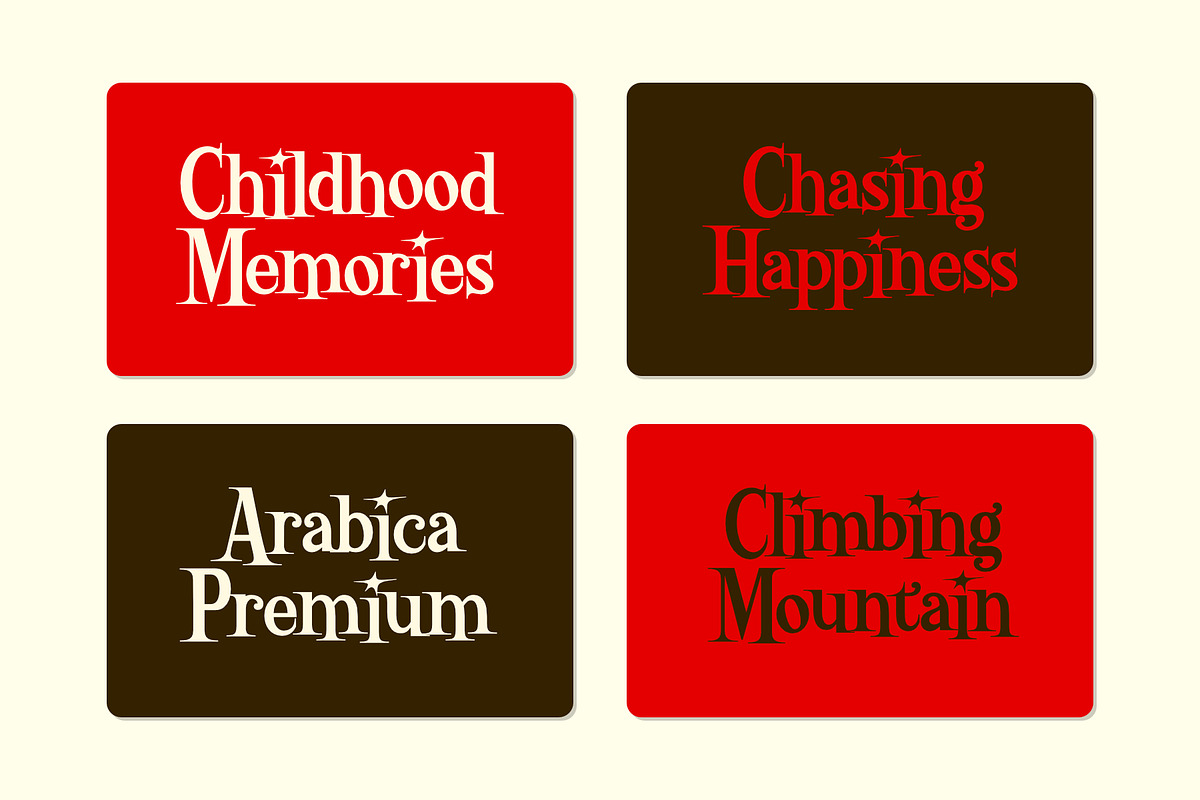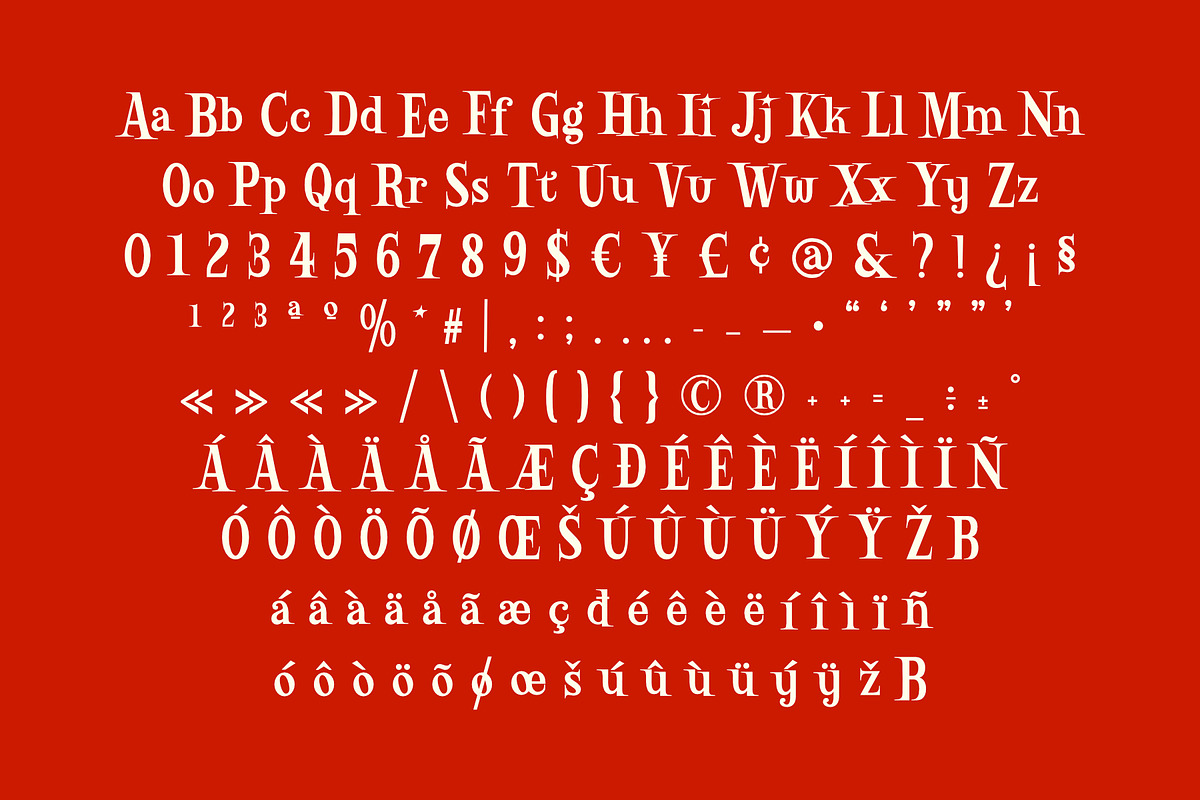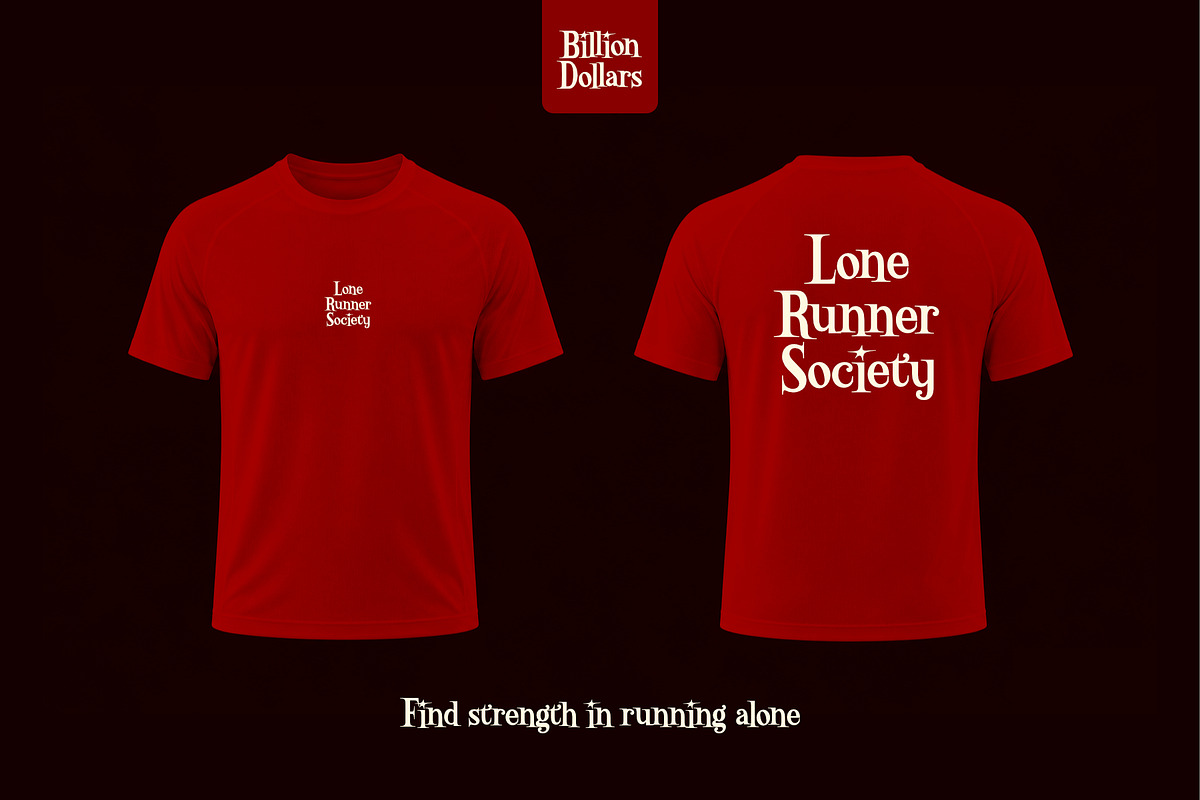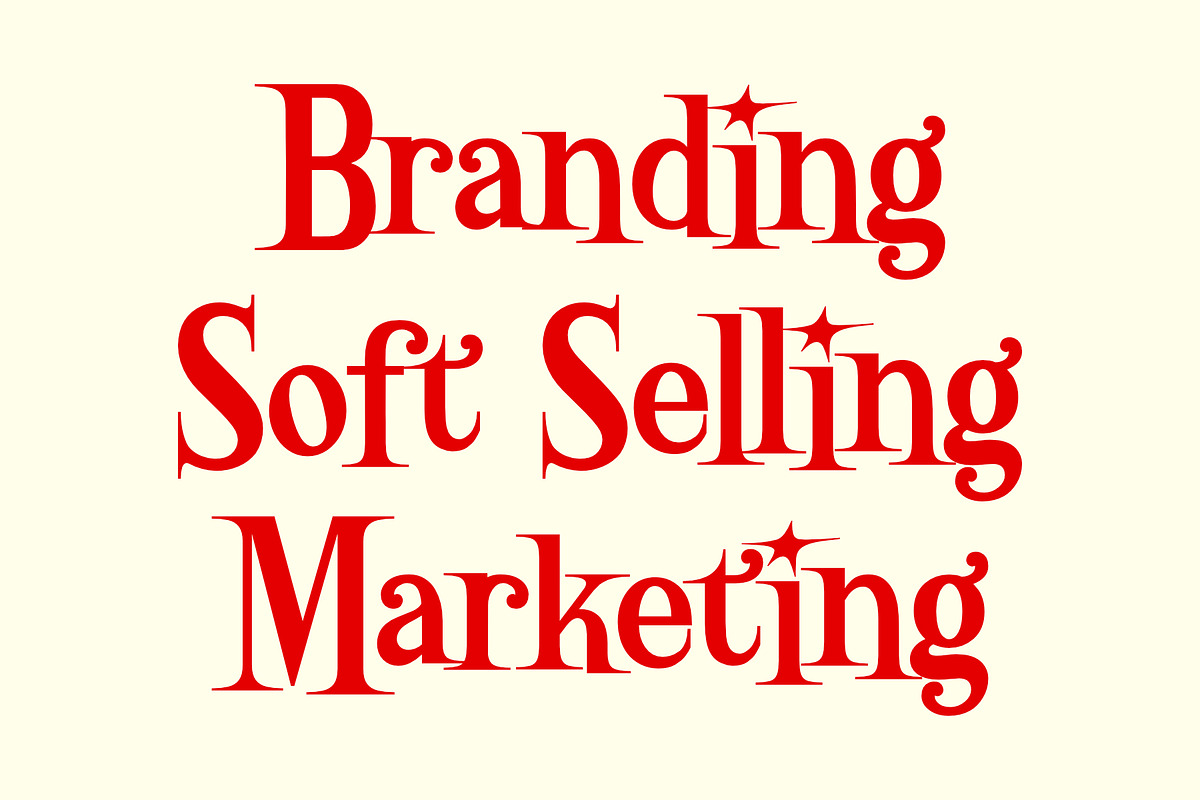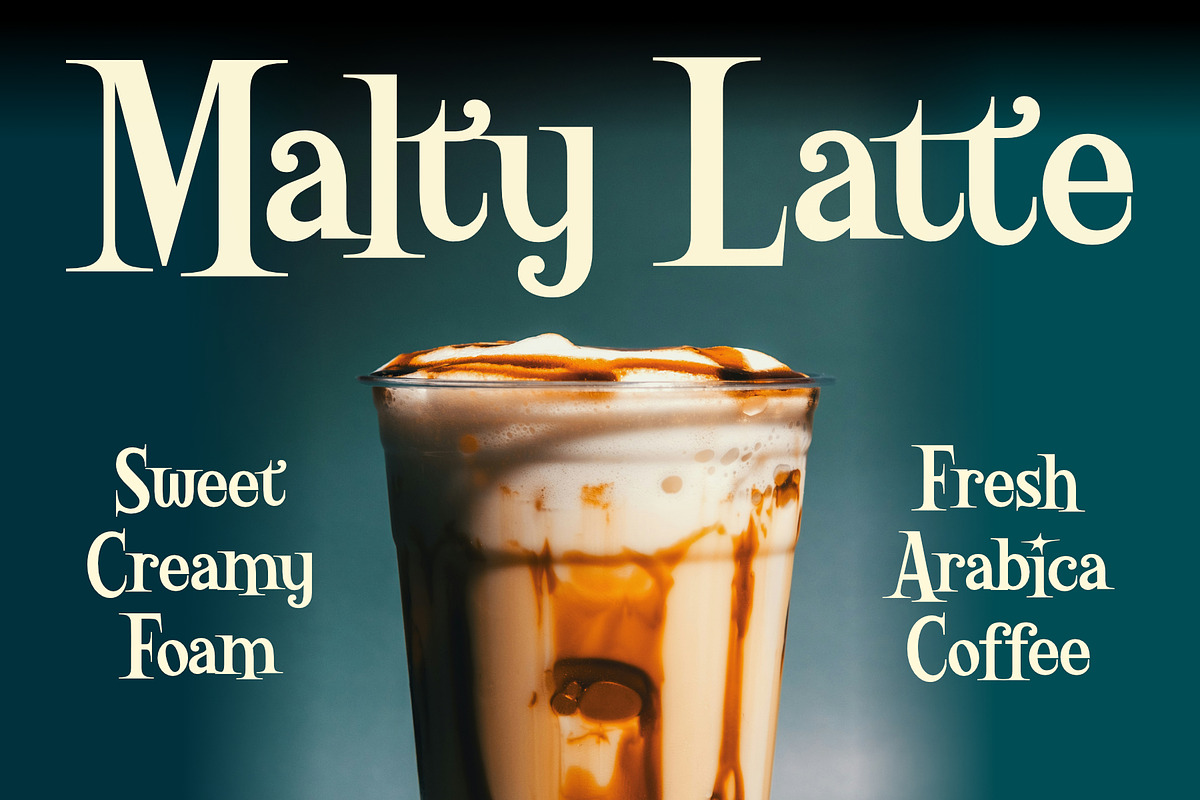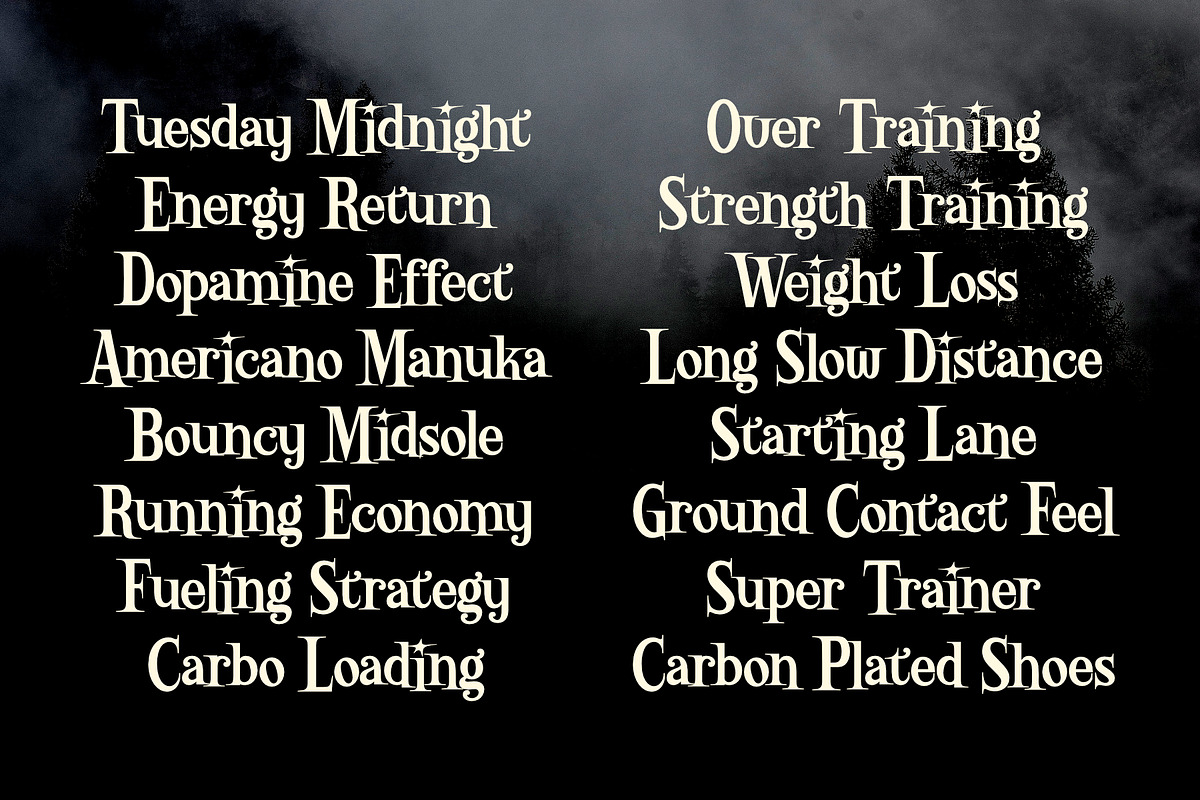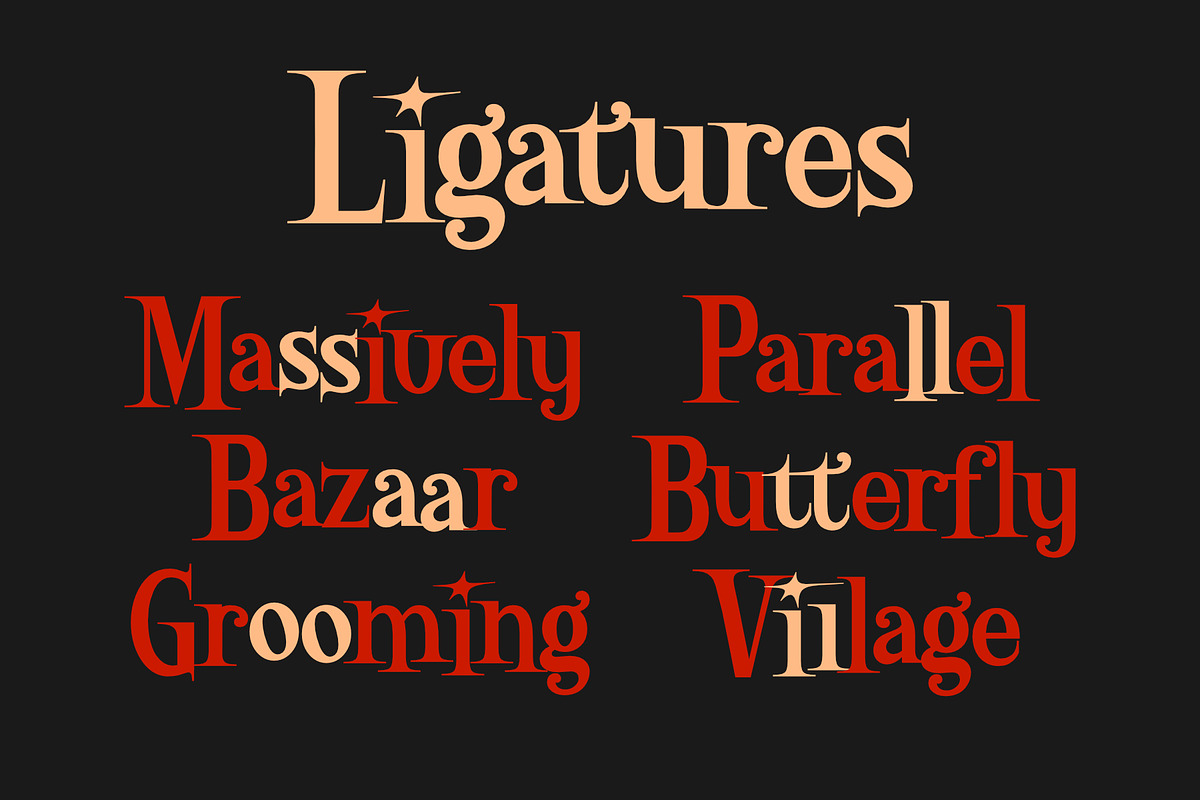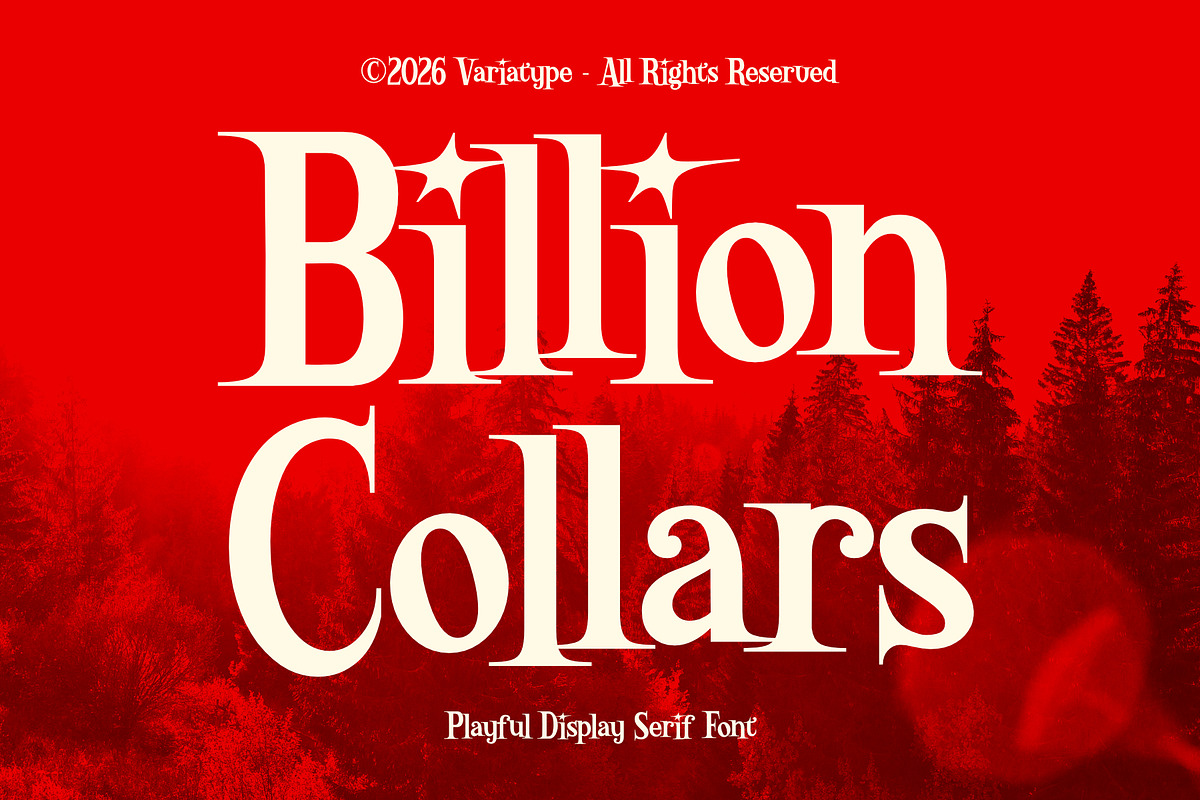
Billion Collars - Playful Serif
Billion Collars is a playful display serif designed for brands that want to stand out with confidence, personality, and memorable visual impact. Combining classic serif elegance with distinctive decorative details, this typeface brings a fresh and charismatic voice to logos, packaging, advertising campaigns, editorial headlines, and modern branding projects. Whether you’re building a consumer brand, launching a creative product, or crafting marketing materials that need instant attention, Billion Dollars helps transform ordinary words into recognizable brand assets, creating typography that feels bold, approachable, and hard to ignore.
Additional Accents
68 Languages
Kerning